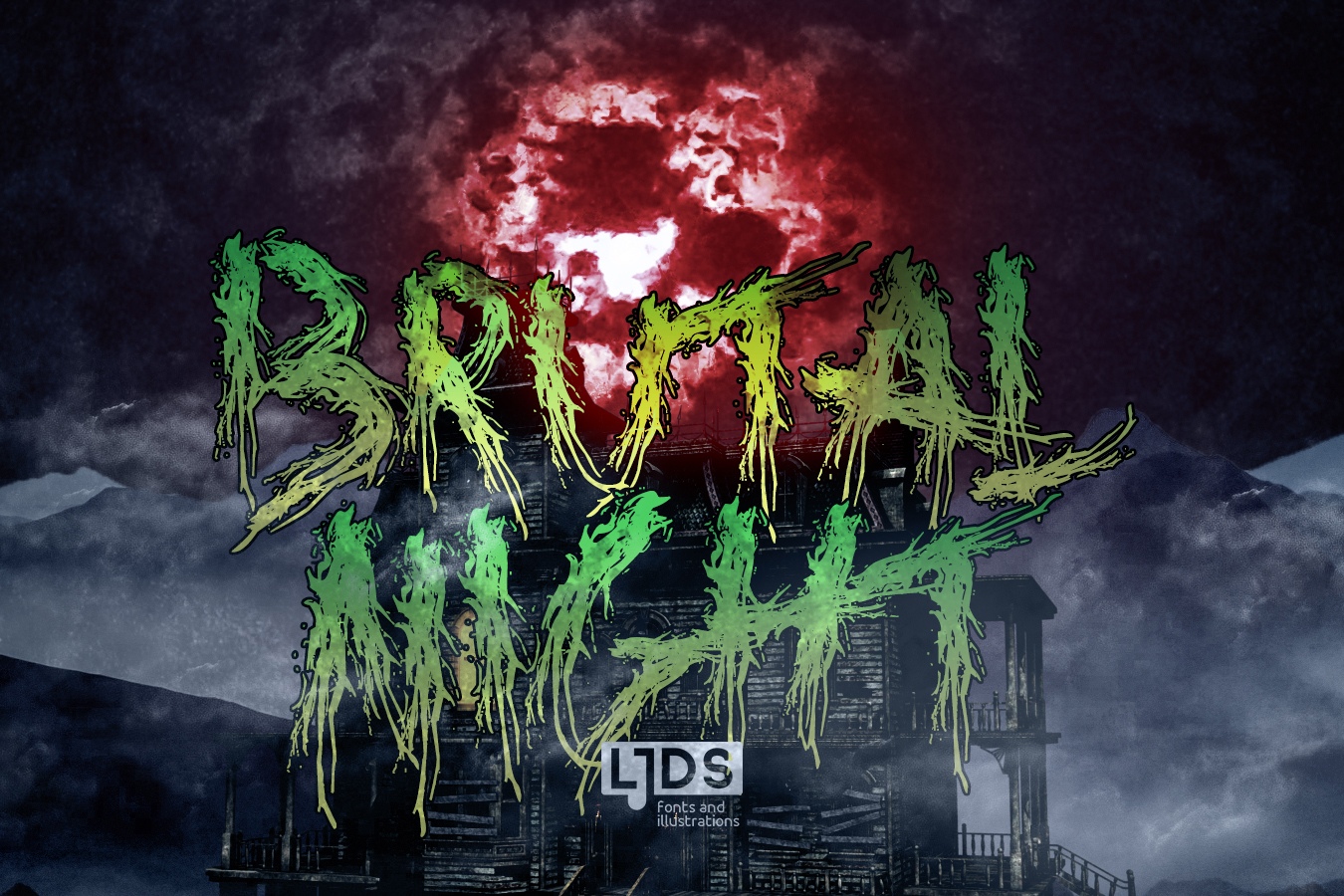
Brutal Night Font
Brutal Night Font is perfect for underground music venue branding, death metal band logos, horror movie titles, extreme sports marketing, dark gaming interfaces, and aggressive streetwear packaging. This intense typeface works exceptionally well in nightclub event posters, brutal fitness gym signage, and hardcore entertainment brand communications.
What makes Brutal Night Font so exciting is its raw, uncompromising intensity that delivers maximum visual impact through aggressive typographic design. The font features jagged, distorted letterforms with sharp edges and brutal construction that creates an atmosphere of darkness and rebellion. Its menacing aesthetic demonstrates exceptional power and underground authenticity, making it ideal for brands seeking to convey aggression, intensity, and unfiltered raw energy.
Brutal Night Font comes in multiple style variations including Regular, Heavy, Distressed, and Shadow versions. The font family also includes aggressive decorative elements, brutal symbols, and underground-inspired alternates that enhance the dark intensity and provide extensive creative possibilities for extreme design applications.
The font's aggressive construction ensures maximum visual impact across challenging environments while maintaining its brutal underground appeal. Professional designers appreciate its comprehensive character support and specialized features that maintain readability even in the most aggressive design contexts.
Brutal Night Font has become the go-to choice among creative professionals working with extreme and underground brands. Its ability to convey raw power and brutal authenticity makes it an invaluable asset for organizations seeking to establish dominant presence with audiences who appreciate uncompromising, aggressive design aesthetics.